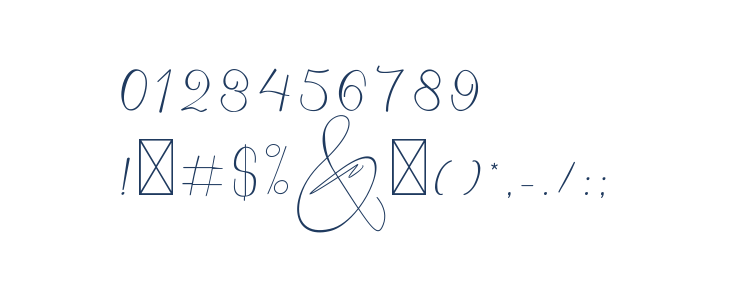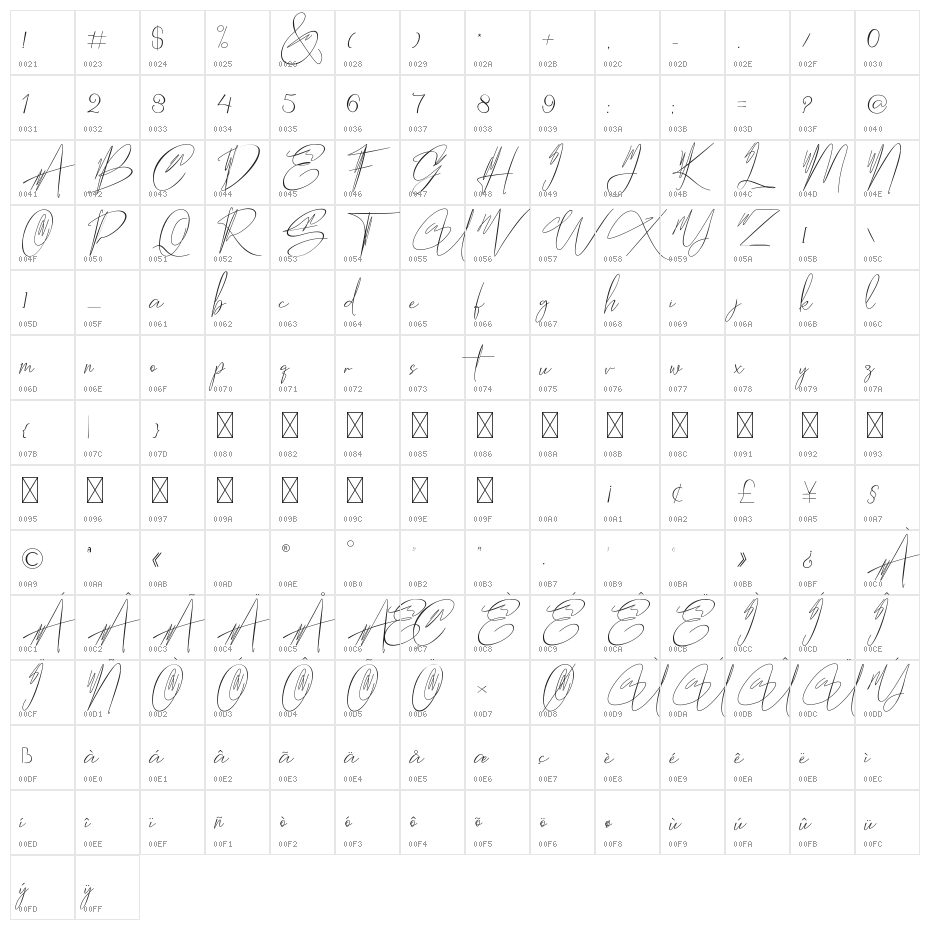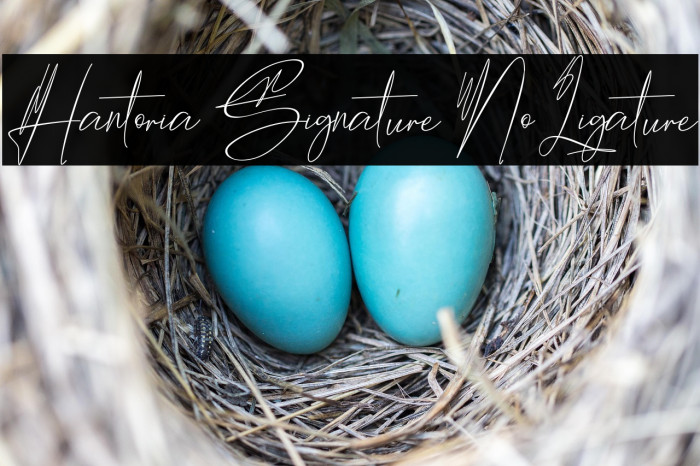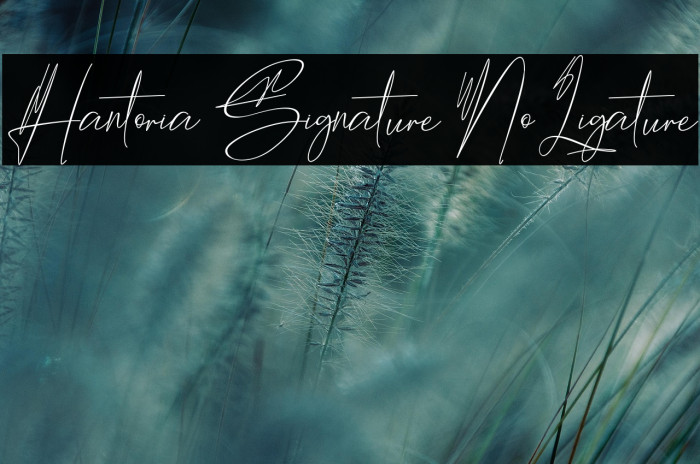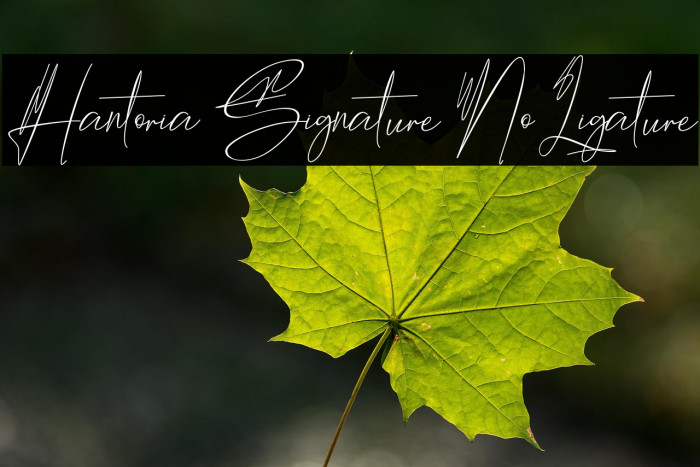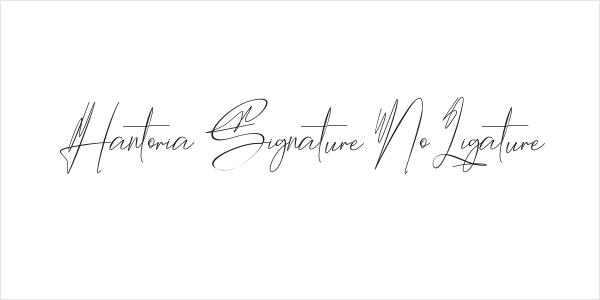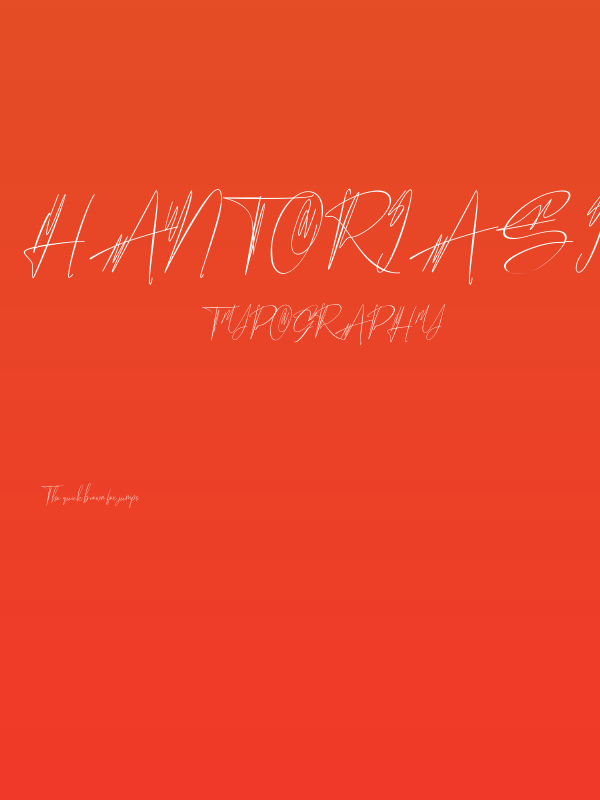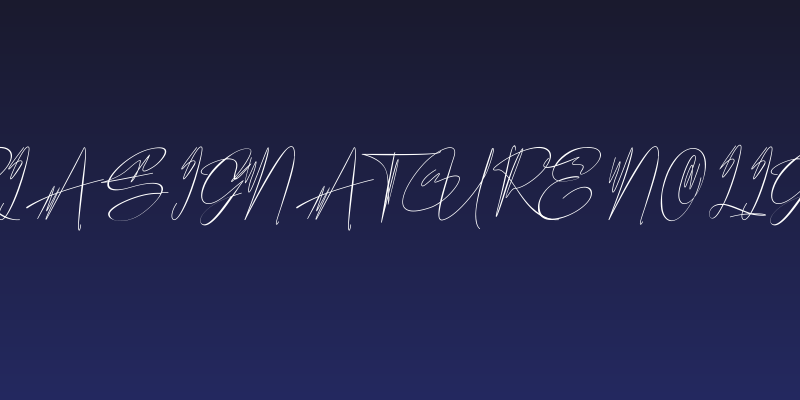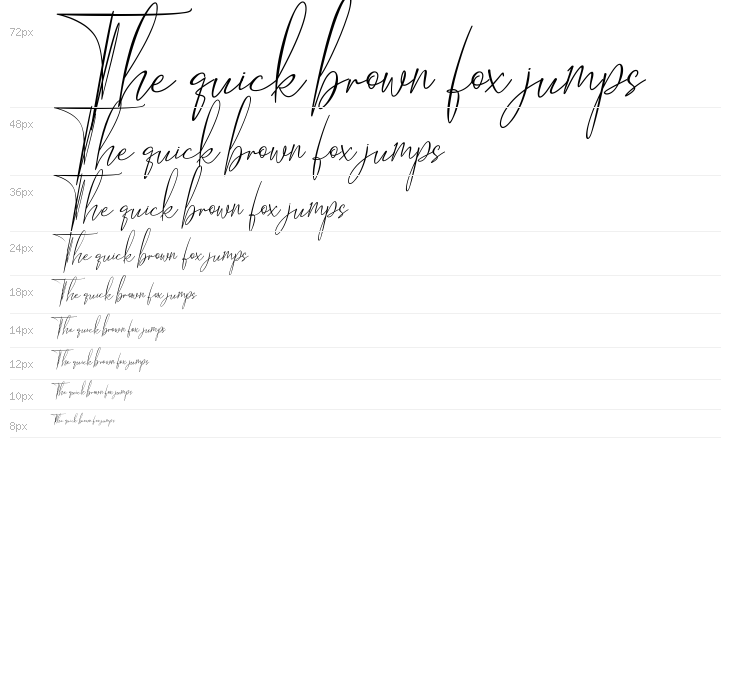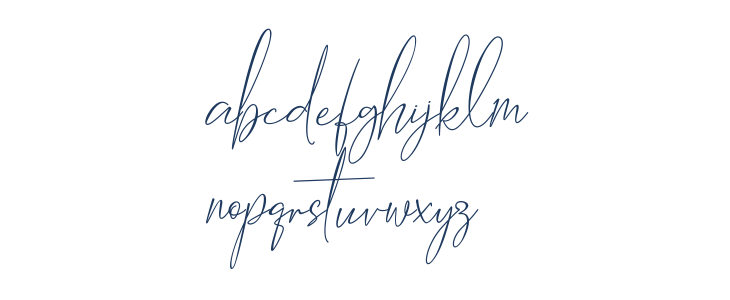
Hantoria Signature NoLigature Font
Hantoria Signature NoLigature Description
This font features a sophisticated and elegant script style, characterized by its fluid and flowing letterforms. The uppercase letters exhibit a dynamic and expressive quality, with elongated strokes and a sense of movement. The lowercase letters maintain a consistent cursive style, offering a harmonious blend of curves and loops. The numerals are clear and legible, complementing the overall aesthetic. Special characters are designed with the same attention to detail, ensuring a cohesive look across all glyphs. This font exudes a sense of refinement and grace, making it ideal for projects that require a touch of elegance.